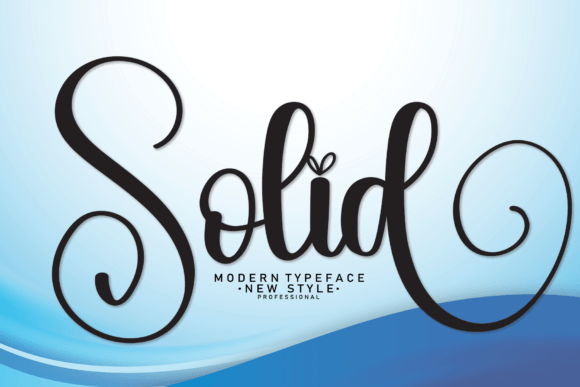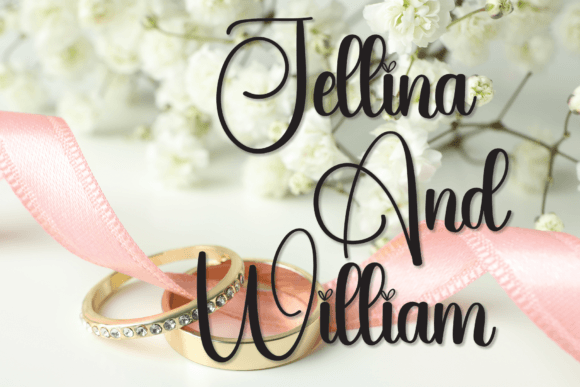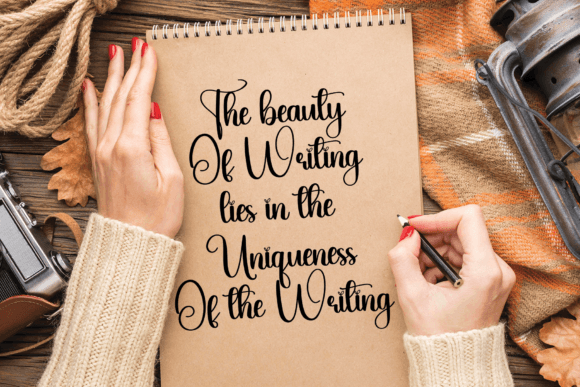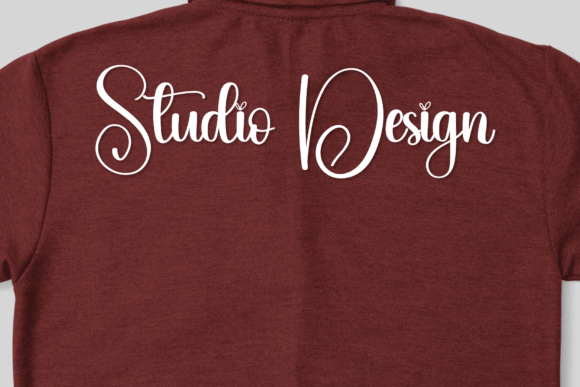
About Solid
Solid is an elegant script font with a contemporary atmosphere and impeccable form, inspired by timeless classic calligraphy. Not too thin and not too thick, balanced and varied, this font was designed to enhance the beauty of your projects.